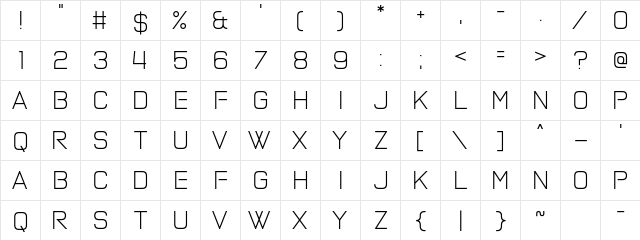
Petrichor Sublimey Regular
| Designer | Allison James |
Design Context for Petrichor Sublimey Typeface
Petrichor Sublimey is a composed and adaptable typeface that performs quietly and consistently across a wide range of design contexts.